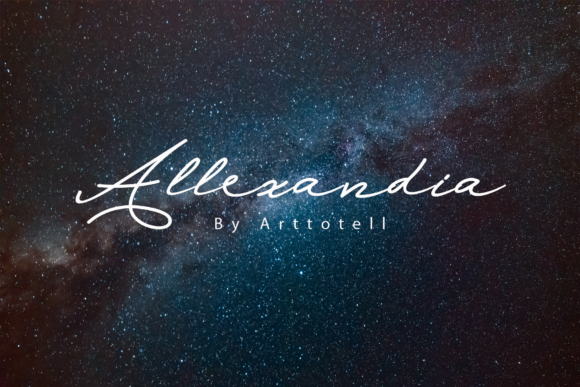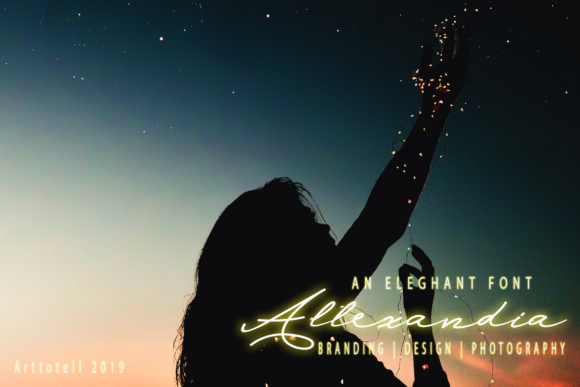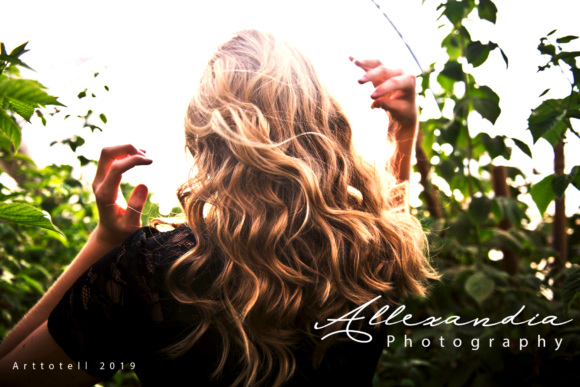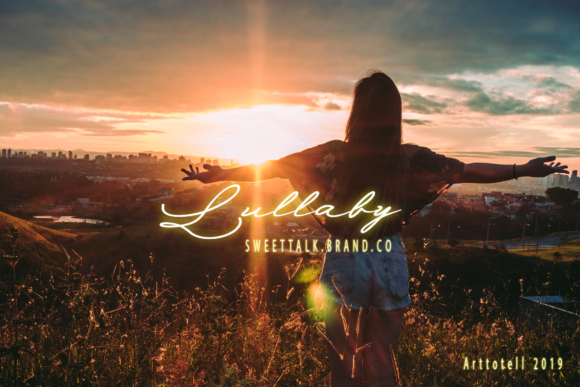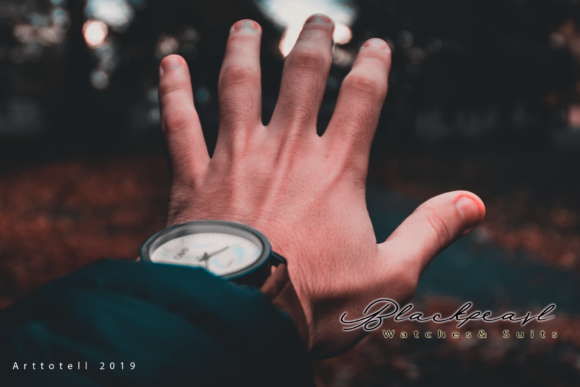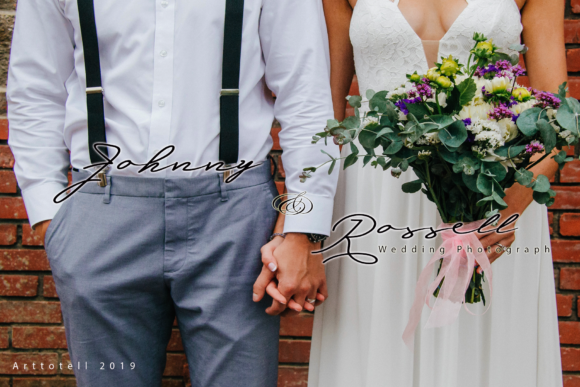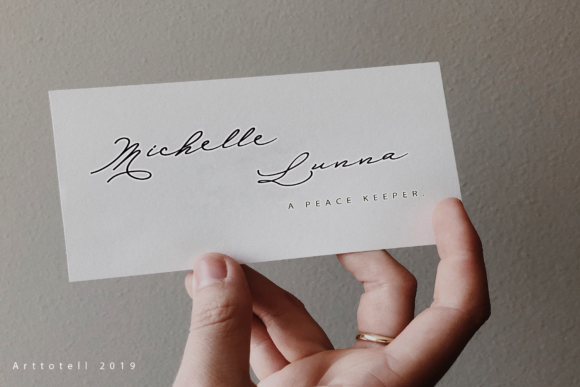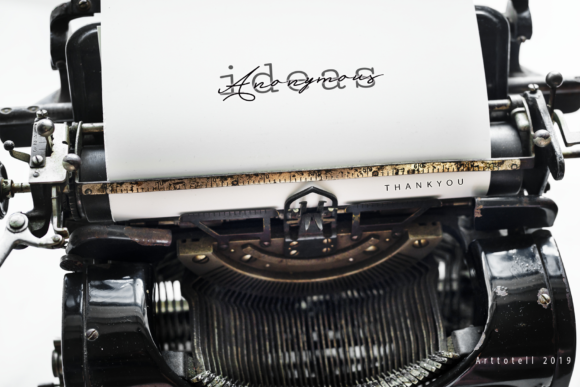
Allexandia Font
About Allexandia Font
The Allexandia is a beautiful handwritten font with a natural and elegant calligraphy look. It has a stylish signature style and includes 4 unique styles which gives you the opportunity to create multiple unique designs in an instant.
It can be used for various purposes such as headings, signatures, logos, wedding invitations, t-shirts, letterheads, signage, labels, news, posters, badges etc.